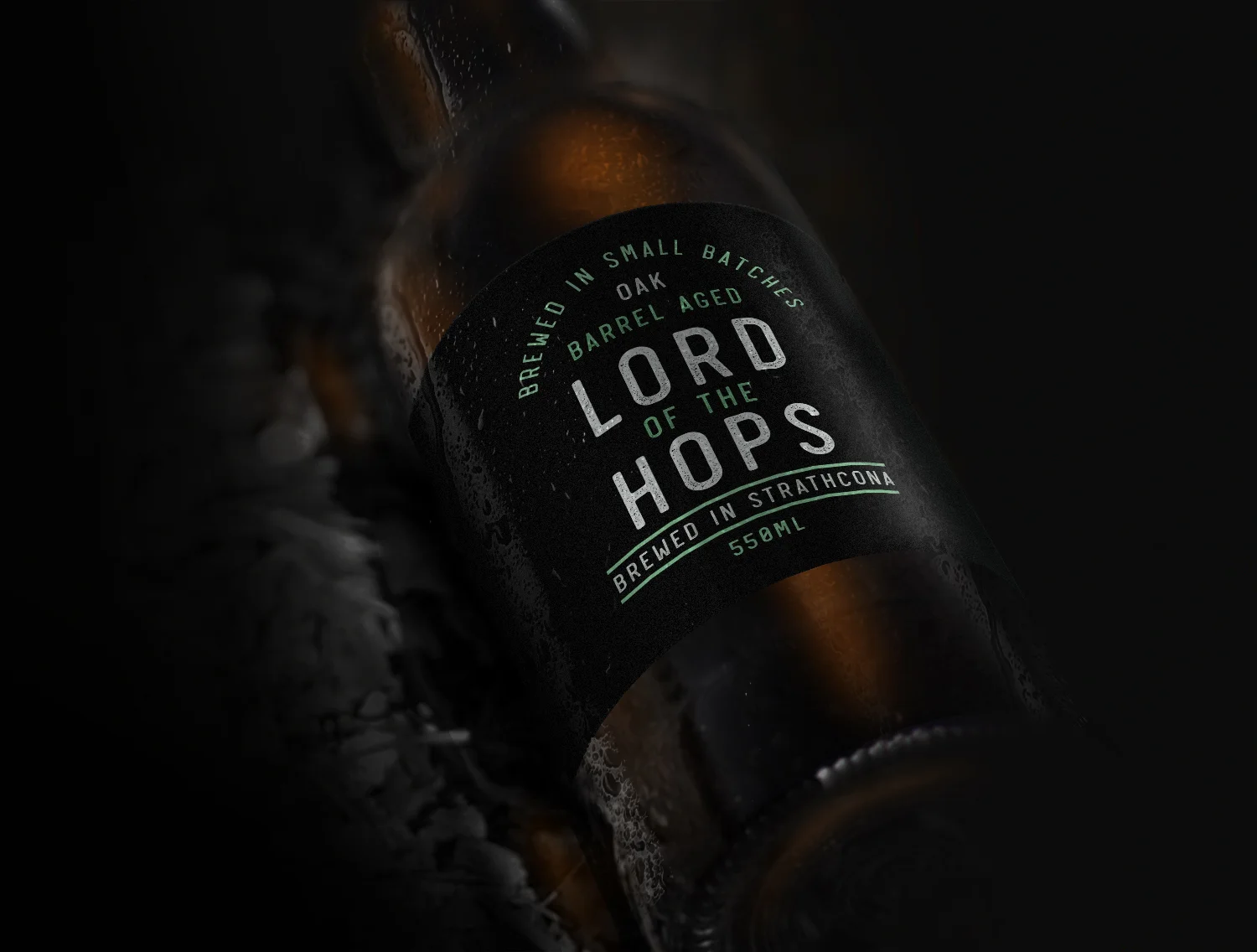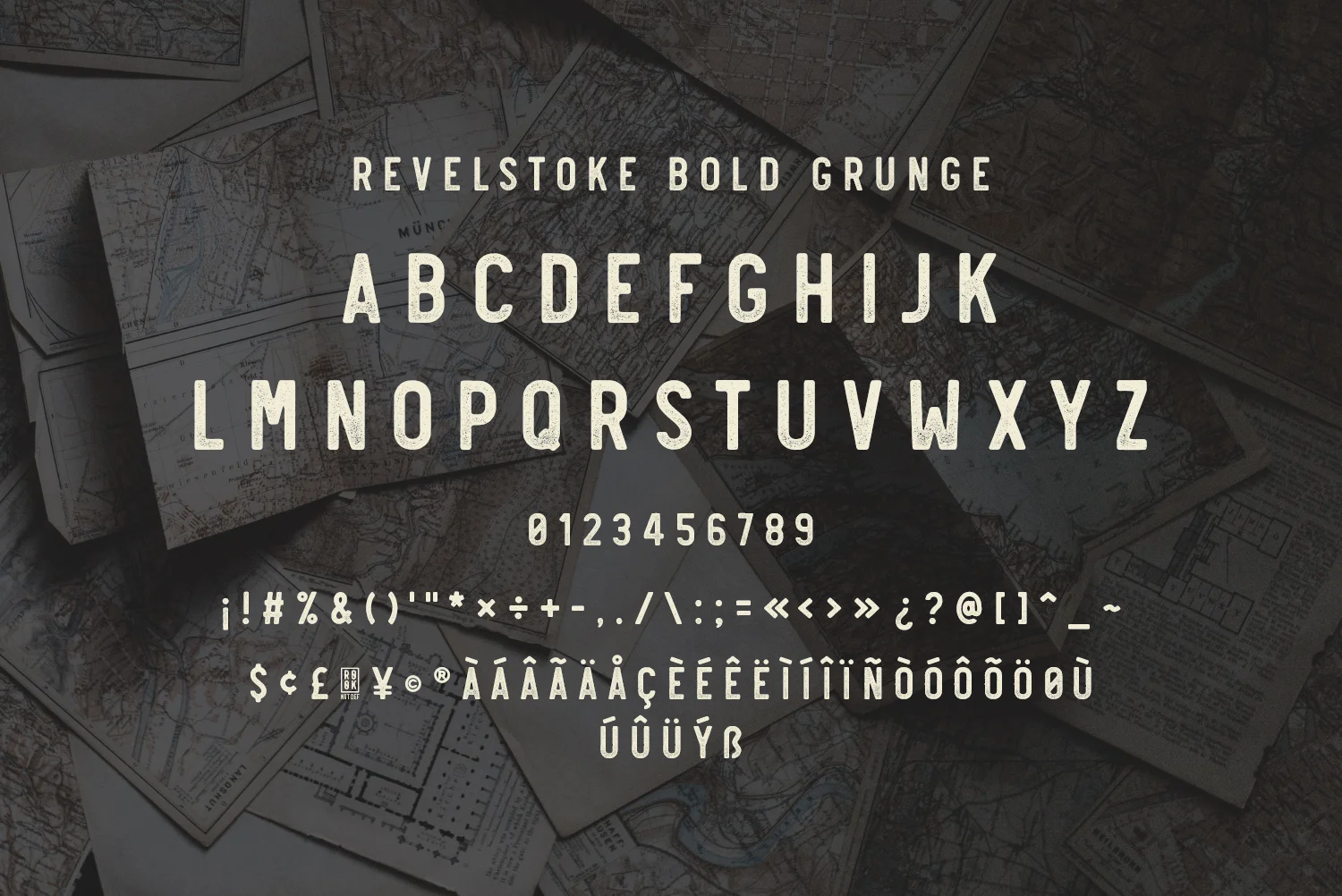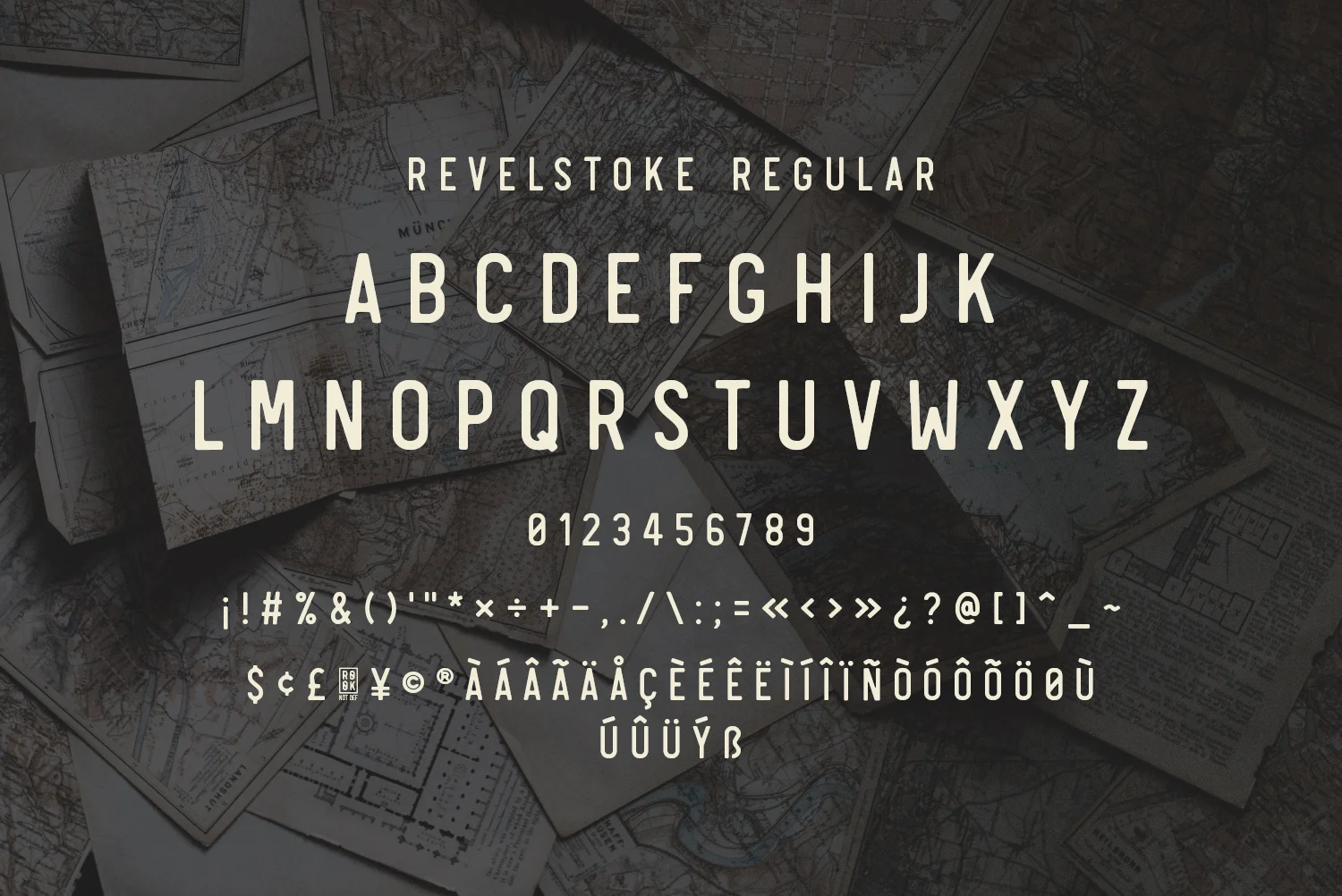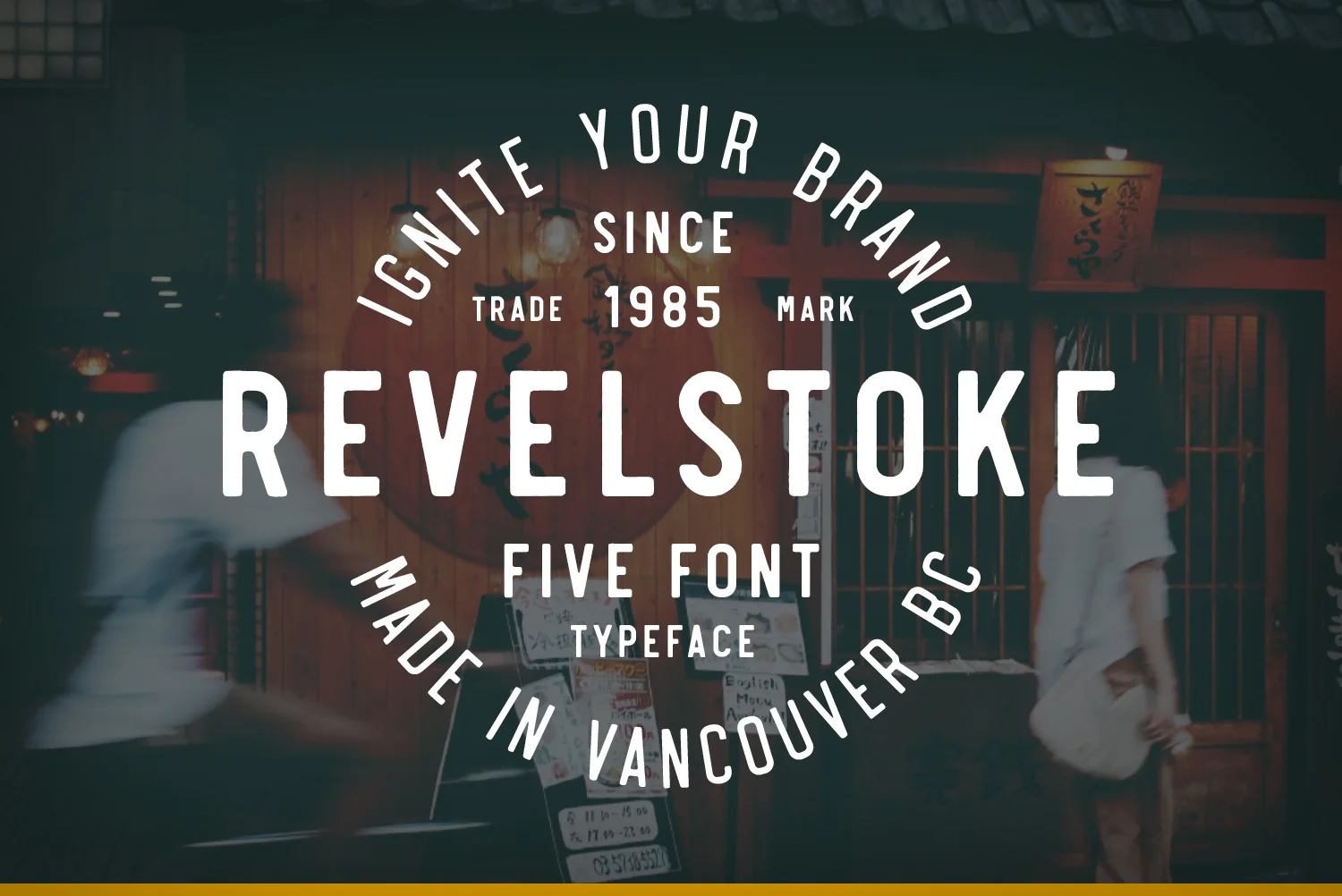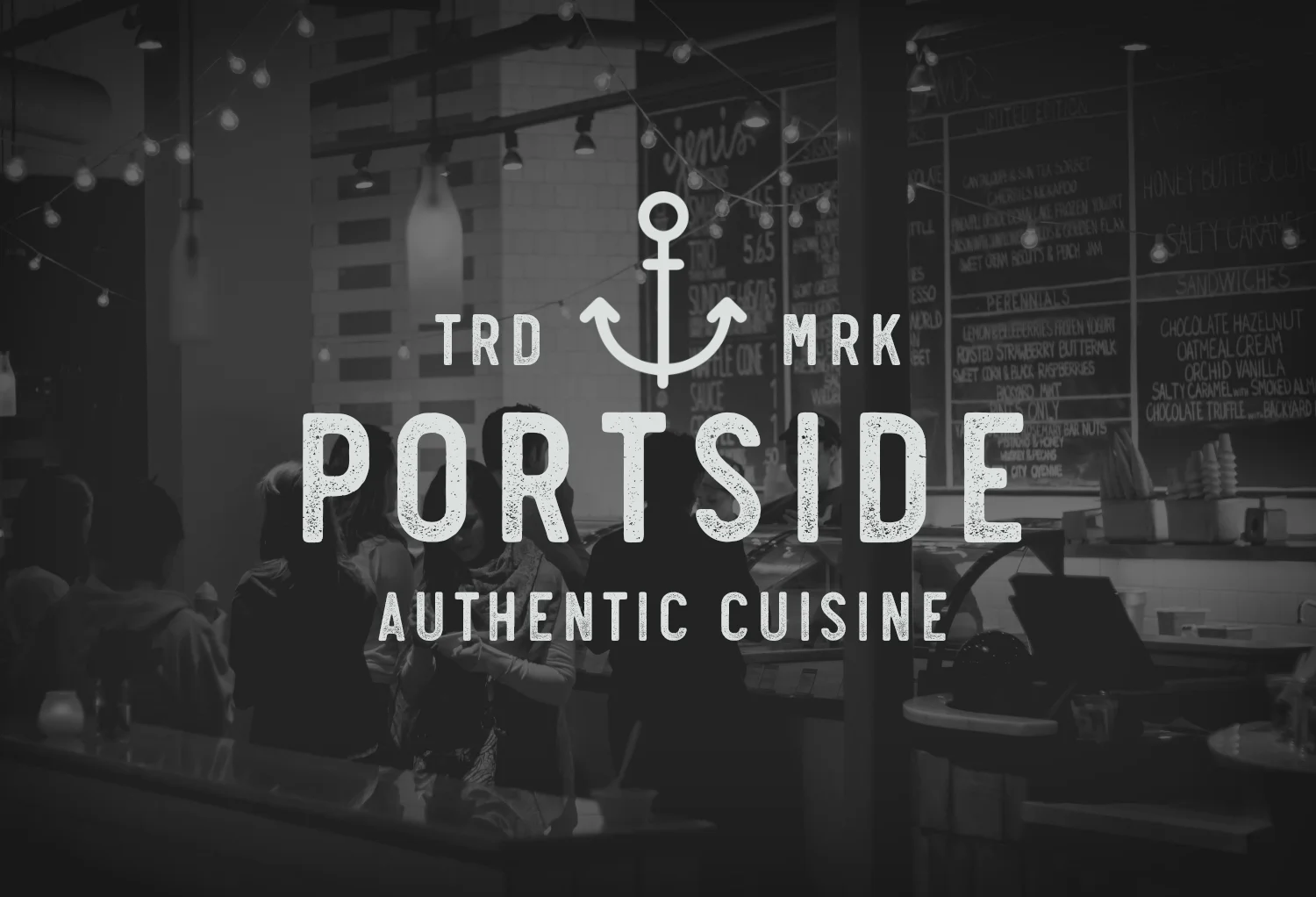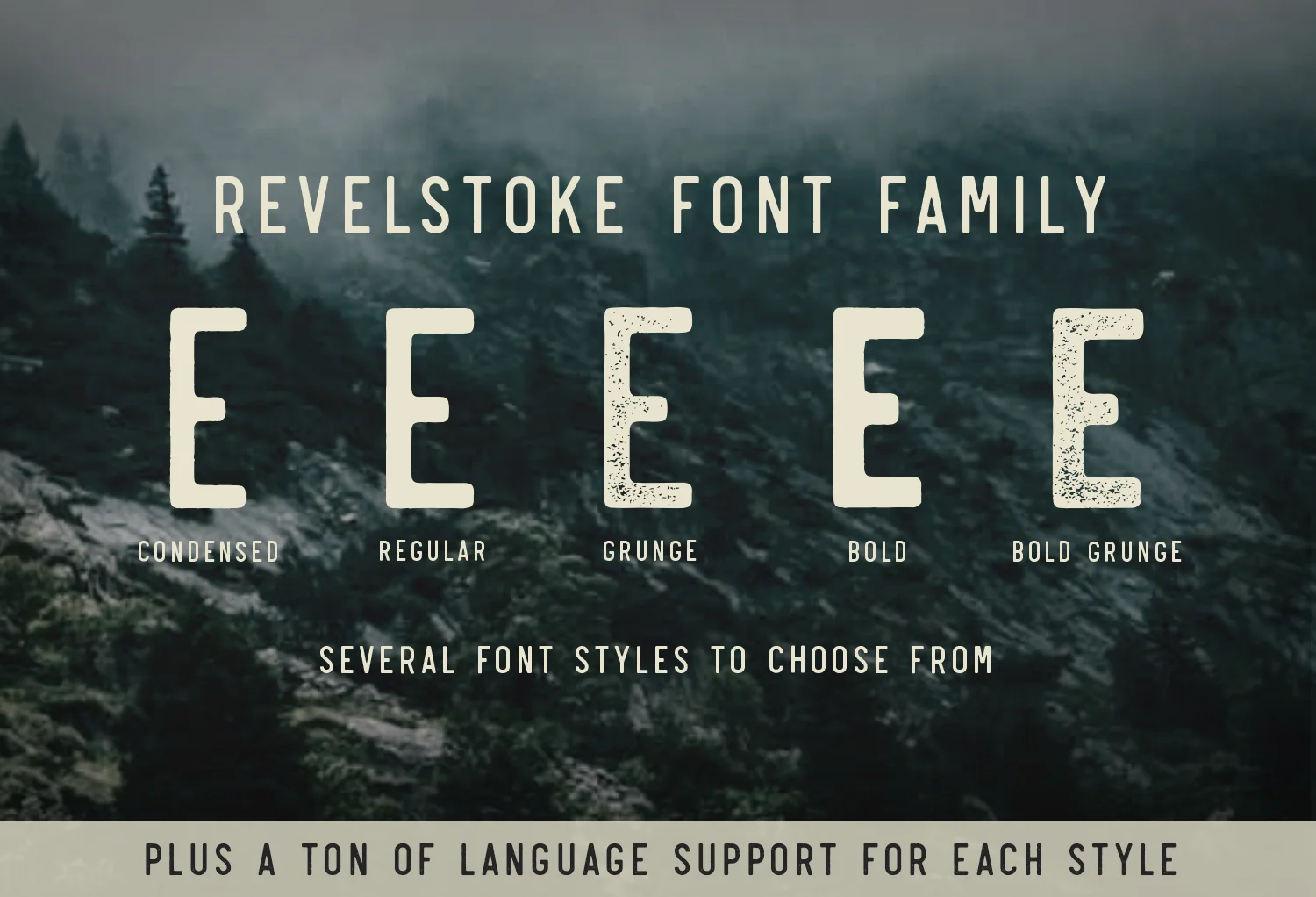
Revelstoke Font
Revelstoke is a family of FIVE sans serif fonts designed with a vintage print look in mind. Rounded edges and imperfections were added to the characters to give that old school printing vibe. For those looking to take things one step further with some texture, we've added in grunge versions as well. Revelstoke is extremely versatile on its own. The font family also works great as a secondary font to go along with existing logos and branding.
Revelstoke - Regular
Revelstoke - Condensed
Revelstoke - Bold
Revelstoke - Grunge
Revelstoke - Bold Grunge